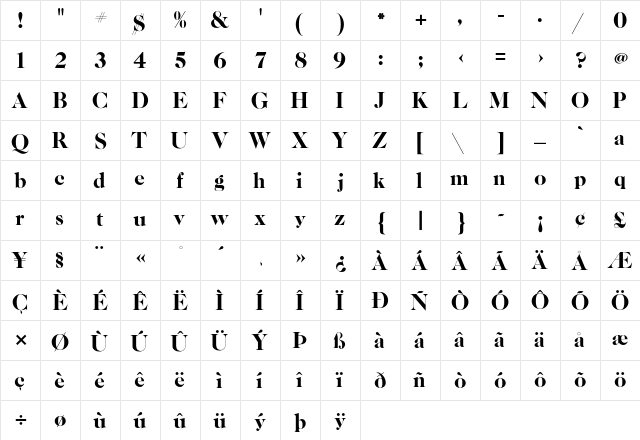
CaslonCP Normal
Design Context for CaslonCP Typeface
CaslonCP offers clean, dependable letterforms without strong stylistic allegiance, making it a practical choice for designers who need flexibility.
Pro Tip: Use CaslonCP in both headline and body roles to test its range before committing to a single application.